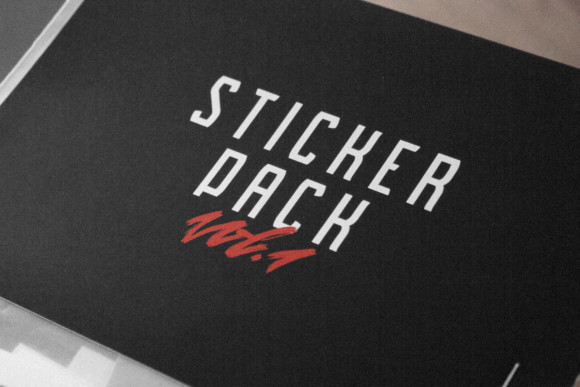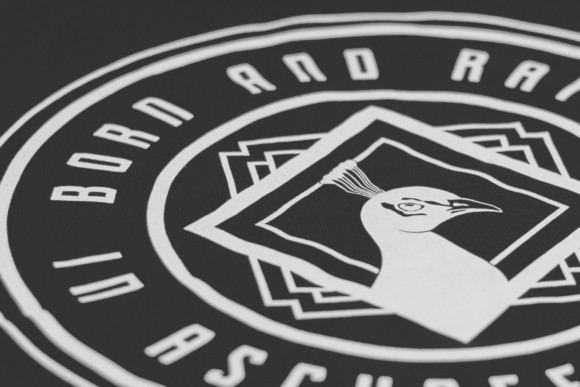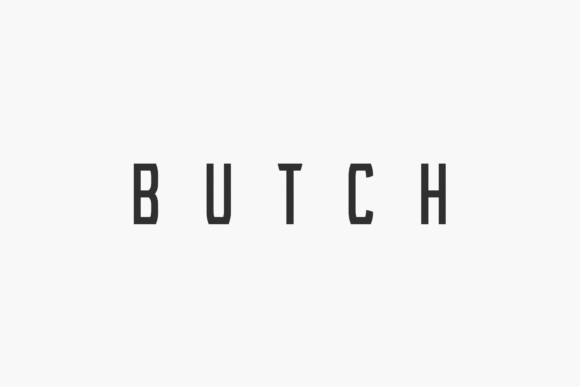
Butch Font
Butch is a unique looking, clean font. Butch is designed to blend perfectly into the urban and street wear fashion culture. Butch is
ideal for advertising, apparel design and logos.